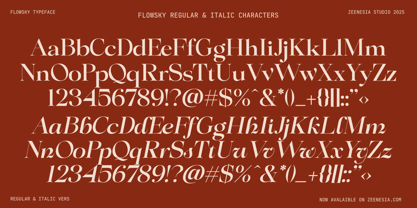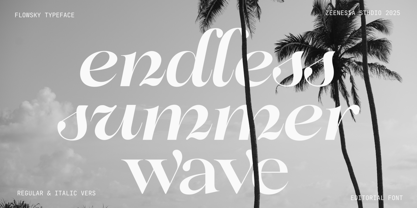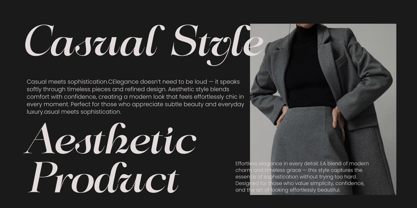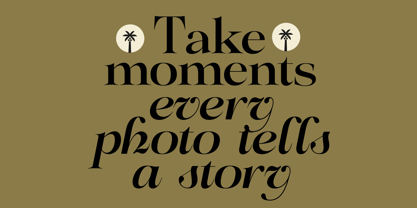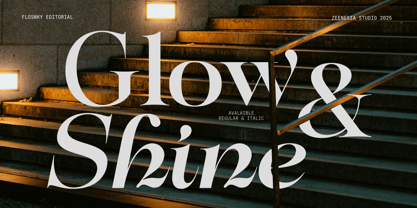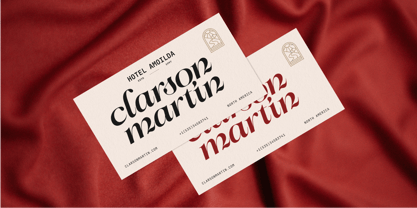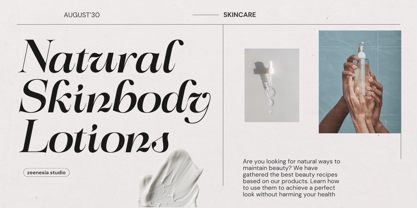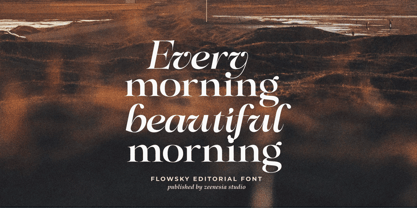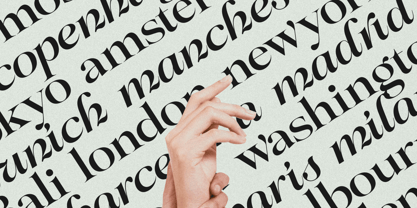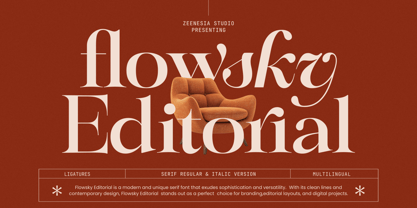
Flowsky
by Zeenesia Studio
The Flowsky Font Family was designed by Doni Purwoko and published by Zeenesia Studio. Flowsky contains 2 styles and family package options.
Flowsky Editorial is a modern serif typeface that blends elegance with contemporary flair. Featuring refined curves, expressive ligatures, and a sophisticated character style, this font is crafted to elevate editorial aesthetics and premium branding. Its clean structure and graceful details make it highly versatile—perfect for magazines, logos, packaging, digital layouts, and creative typographic compositions. Available in Regular and Italic styles, Flowsky Editorial offers strong visual presence while maintaining readability. With multilingual support and thoughtfully designed features, it brings a luxurious, artistic touch to any design project. We hope you enjoy the font, please feel free to comment if you have any thoughts or feedback. Thanks for purchasing and glad to help you!